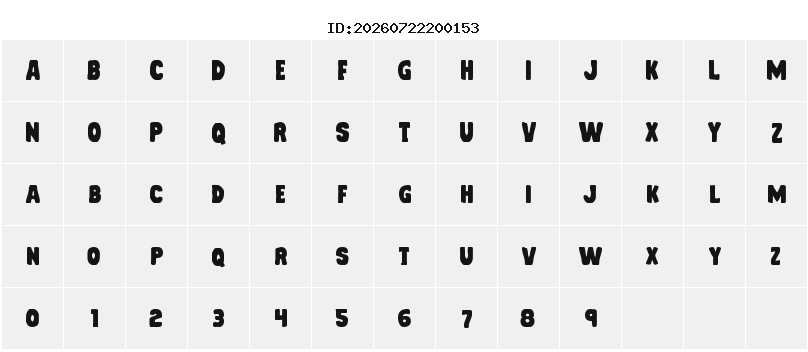
Mystery Mobile Expanded Preview
• Font Name: Mystery Mobile Expanded
• Font Style: Expanded
• Full Font Name: Mystery Mobile Expanded
About Mystery Mobile Expanded.ttf
Mystery Mobile Expanded.ttf is a modern, elegant sans-serif font designed for ultimate readability and visual harmony. Perfect for branding, headlines, web design, and print materials.